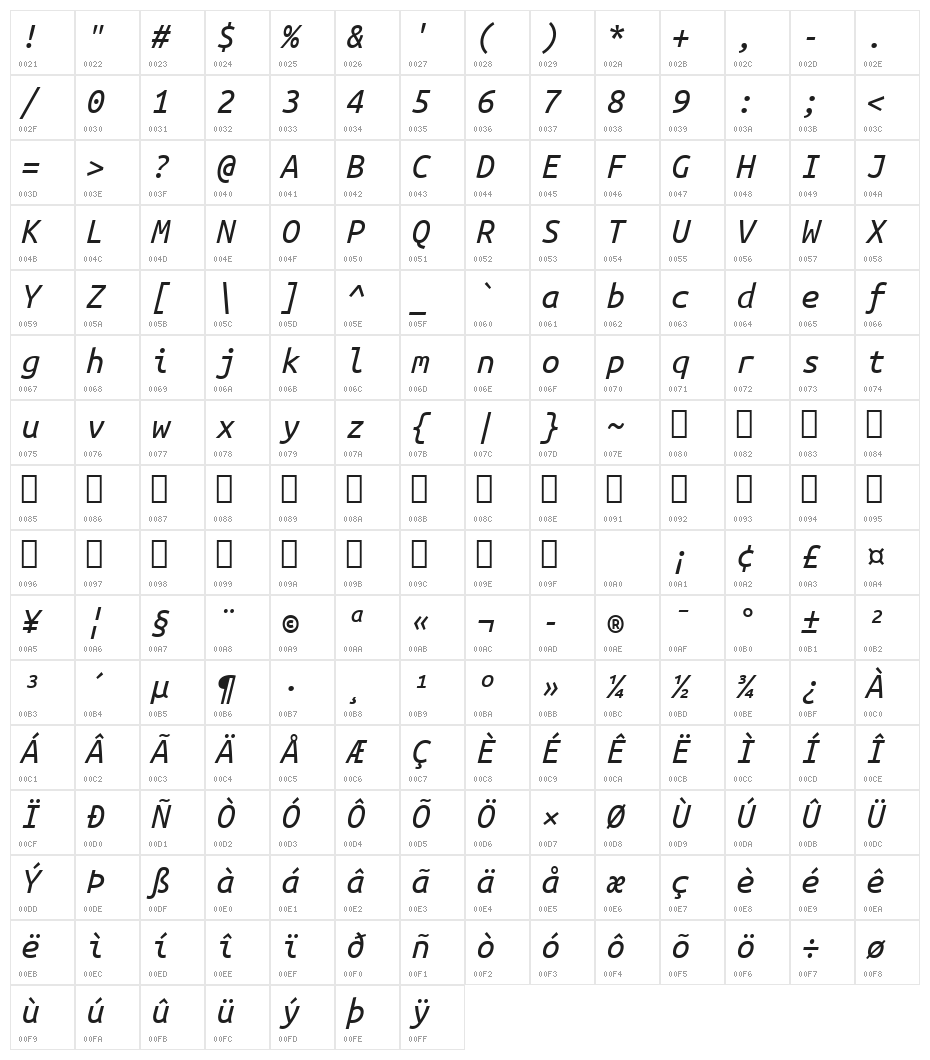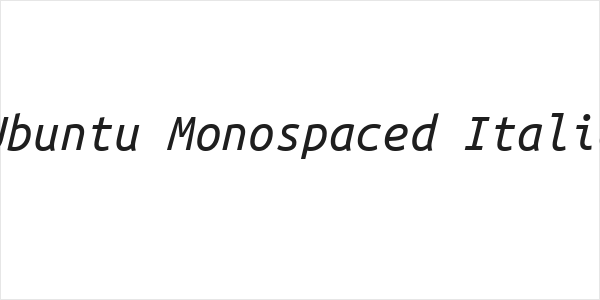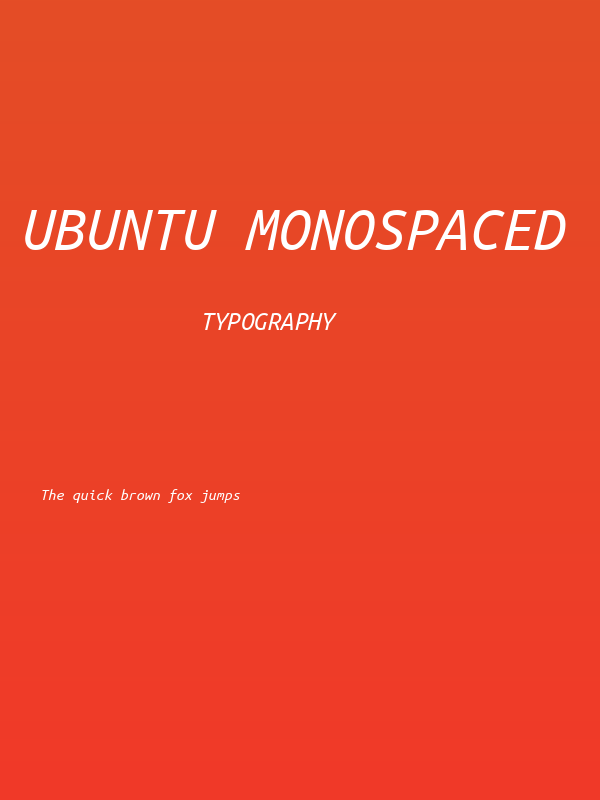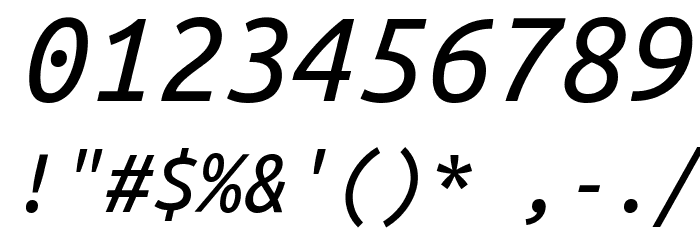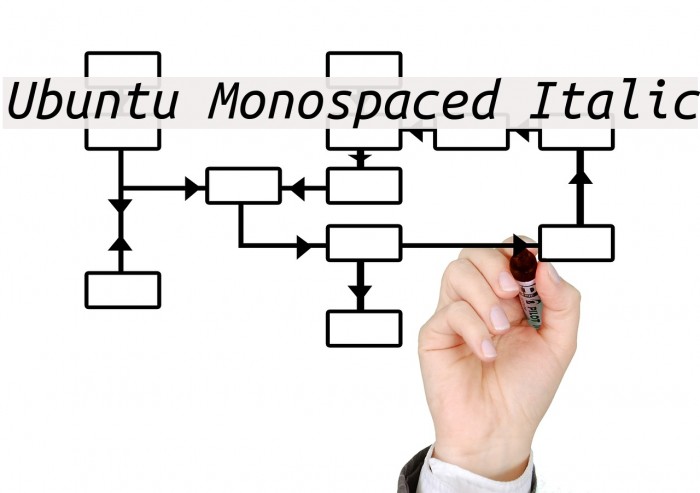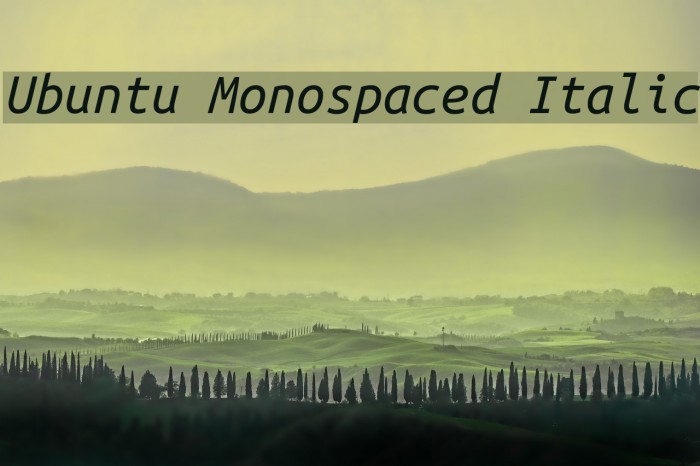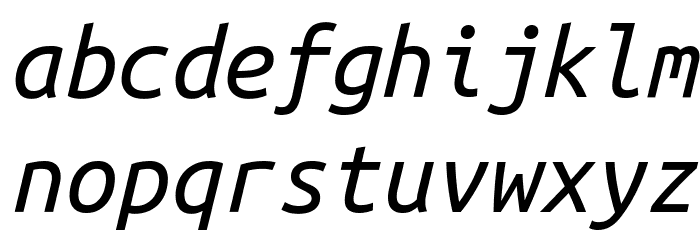
Ubuntu Monospaced Italic Font
Ubuntu Monospaced Italic Description
This font features a clean and modern monospaced design with an italic style, providing a sleek and professional appearance. Each character maintains equal width, ensuring perfect alignment and readability, which is ideal for coding and technical documentation. The slanted characters add a dynamic and contemporary feel, making it suitable for both digital and print media. The font includes a full set of uppercase and lowercase letters, numbers, and a variety of special characters, offering versatility for different applications.
| Use Case | Coding, Technical documentation, Digital media |
| Proposed Projects | Ideal for coding, technical documentation, and modern design projects requiring precise alignment. |